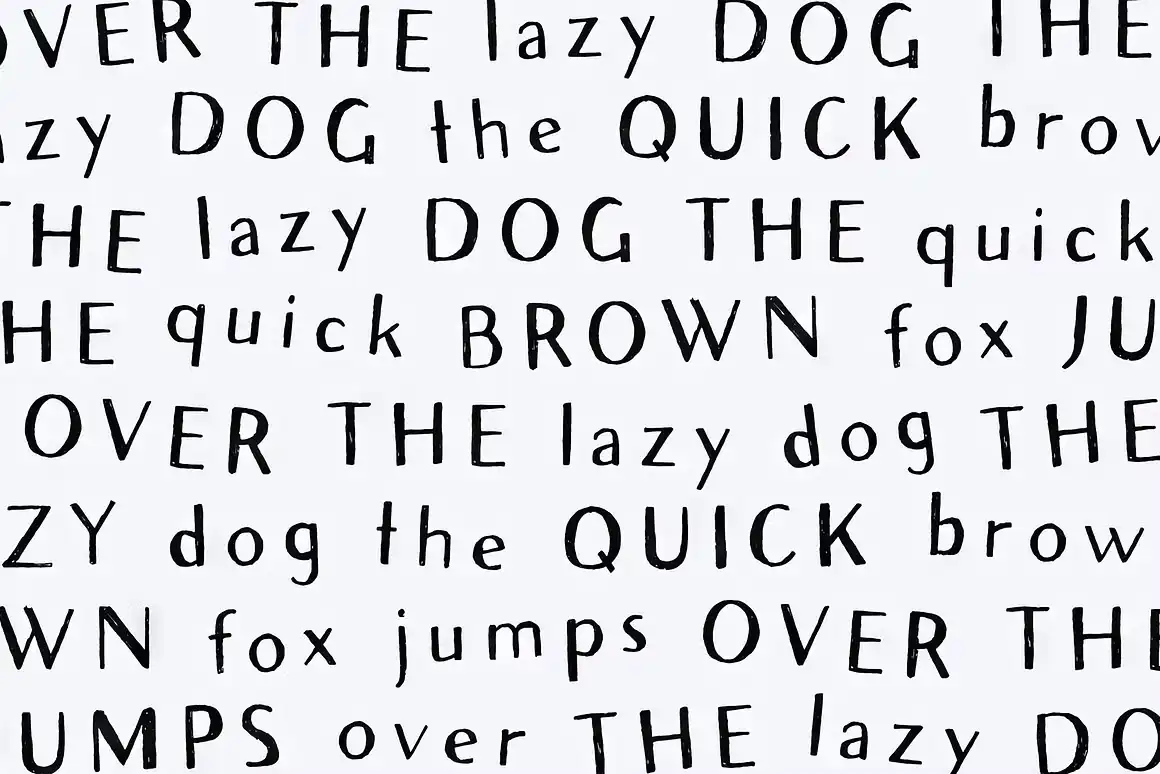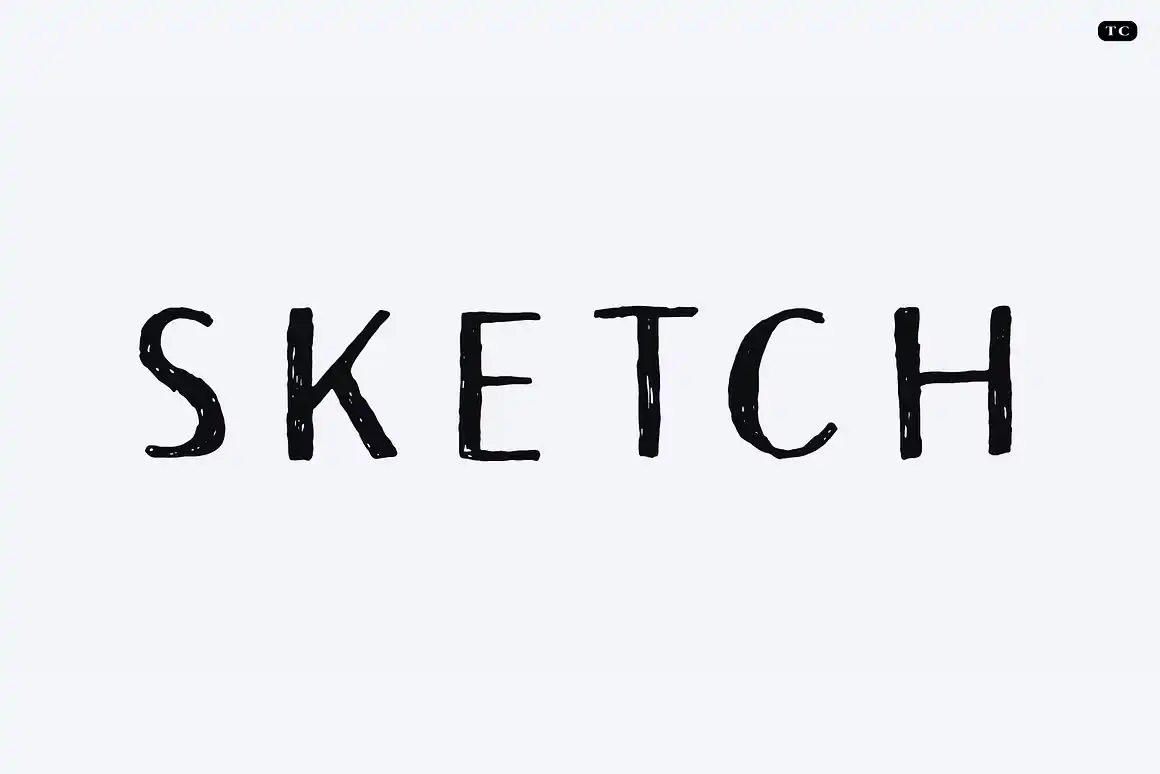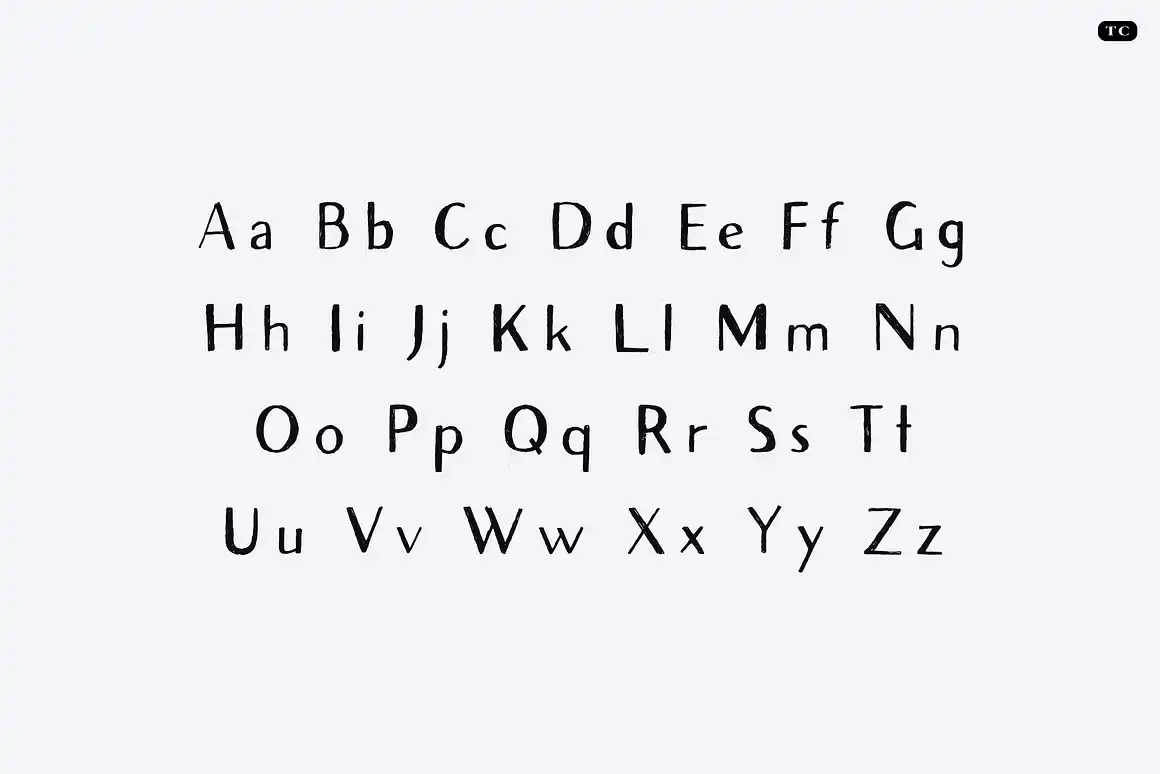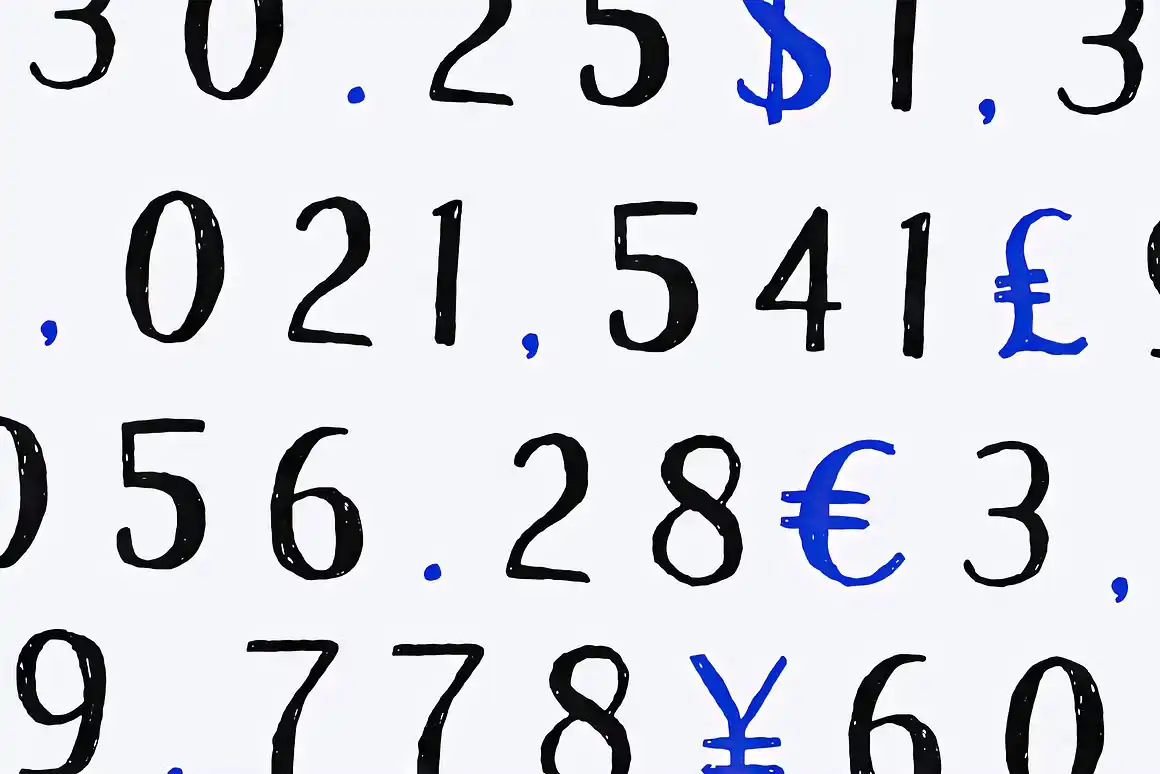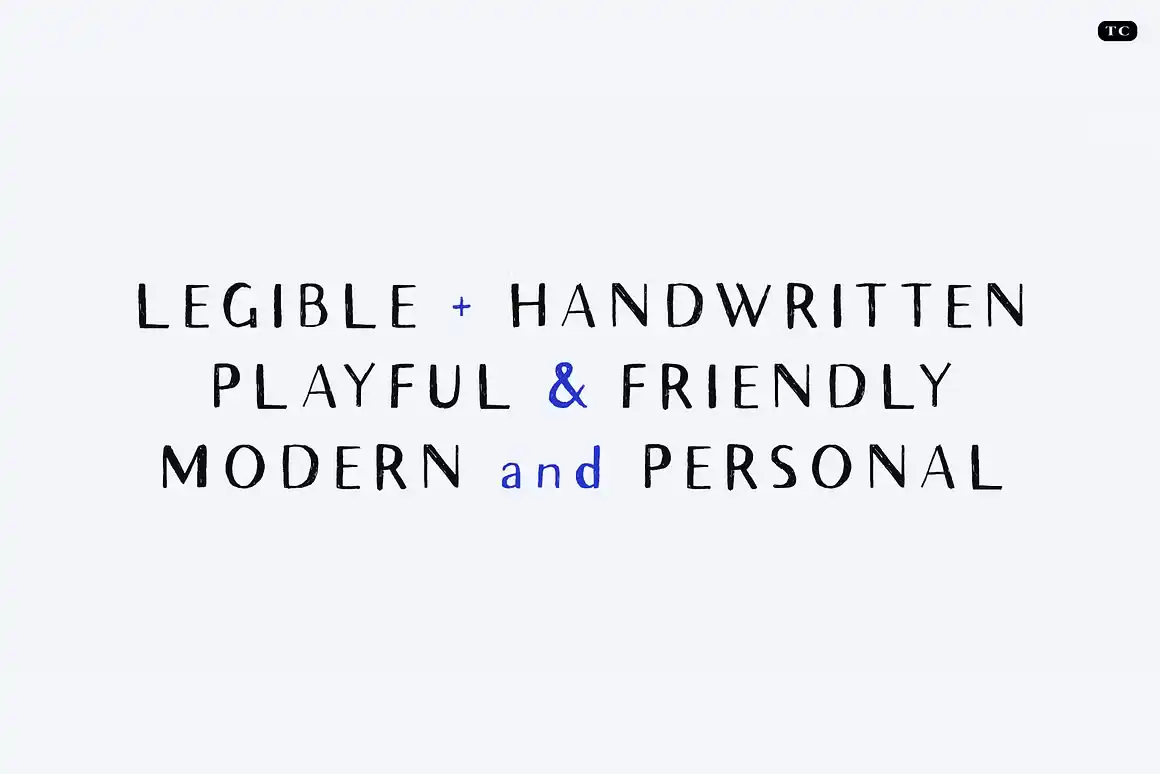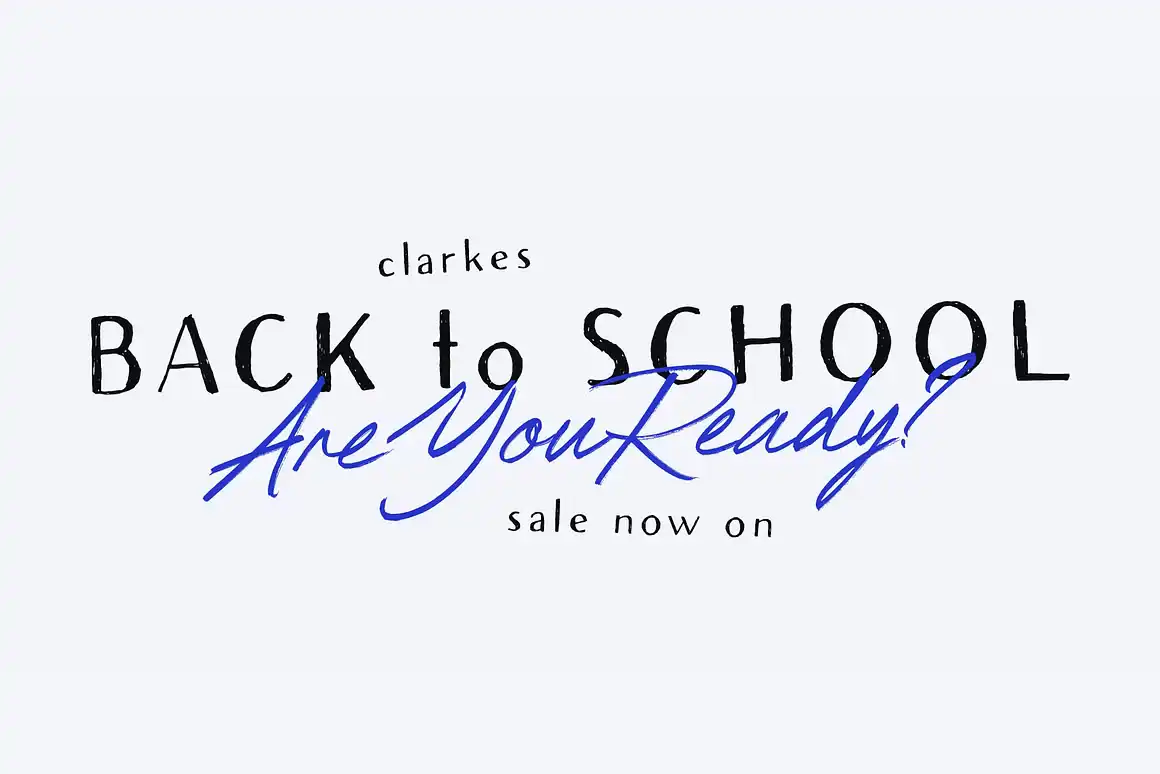
Are you ready to add a playful touch to your designs? 🎨 This digital download features the Avera Sans Sketch, a delightful sketched font that brings warmth and personality to your creative projects. With instant access, you can start using this charming typeface right away!
Introducing TC Avera Sans Sketch: This typeface retains the legibility of our original Avera Sans family while introducing the informal, lively vibe of sketched lettering. With its unmistakable hand-drawn feel, it’s perfect for injecting a dash of casual flair and approachability into your designs. ✏️
This single-weight font effortlessly blends into projects that desire a touch of the human hand. Whether it’s for educational materials, playful branding, or innovative advertising, the sketch style speaks of creativity and dynamism. 🌟
- Hand-Drawn Aesthetic: Adds a unique, personal touch to your designs.
- Versatile Use: Ideal for various projects including logos, posters, and social media graphics.
- Easy to Read: Maintains clarity while showcasing a fun, artistic style.